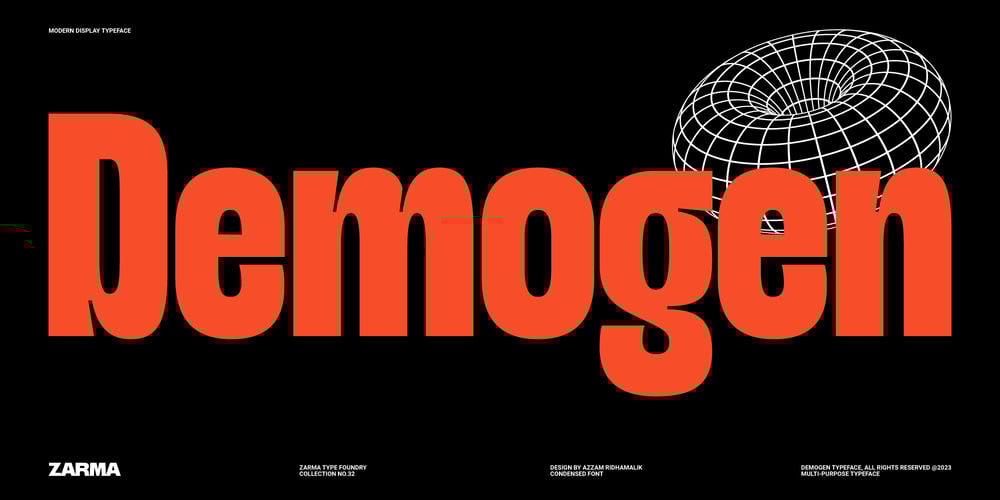
Demogen Sans Condensed Font Font Family was designed by Azzam Ridhamalik and published by Azzam Ridhamalik. Demogen Sans Condensed Font contains 1 styles and family package options. Sans Condensed Font Demogen, A bold and strong condensed font that’s here to make a statement. Drawing inspiration from the sleek modern designs of the 2000s, Demogen brings back that iconic vibe with a fresh twist. This font is your go-to choice for creating stunning posters, captivating website headlines, and sleek interface designs.Demogen typeface has a strong presence and is perfect for display sizes, making it an excellent candidate for impressive logo design with its contemporary sans serif design. It has OpenType features and an Extended Latin character set boasting over 370+ glyphs covering more than 88 languages. Sans Condensed Font Demogen will ensure your design communicates effortlessly to a global audience.Features: Uppercase, Lowercase, Numbers, Punctuation Ligatures Opentype Feature PUA Encoded Characters Extended Latin Multilanguage